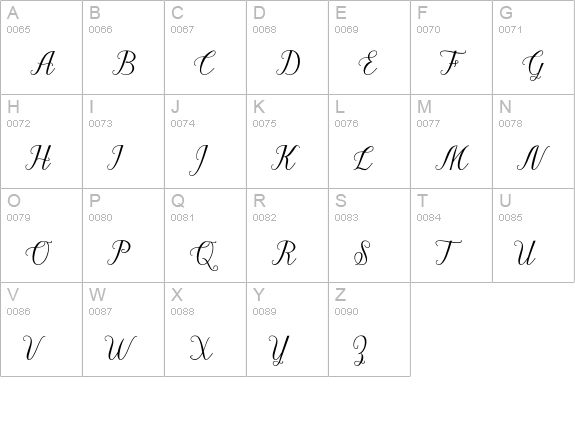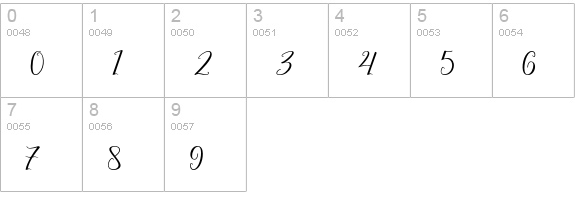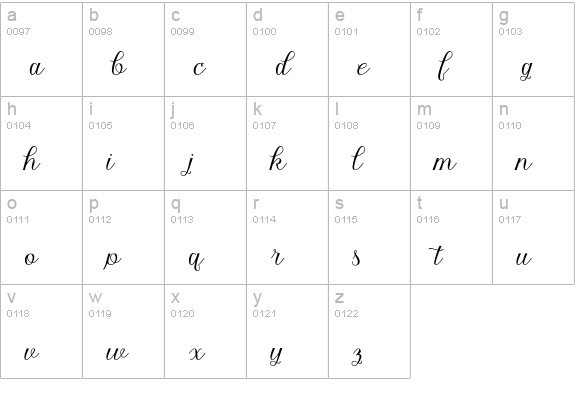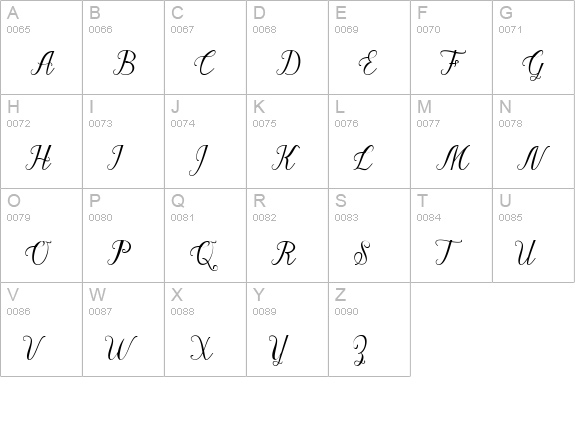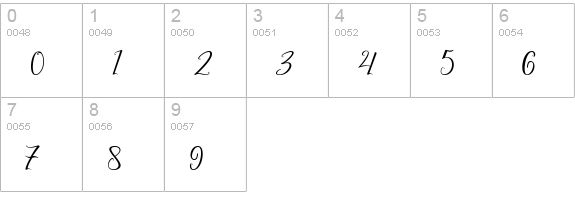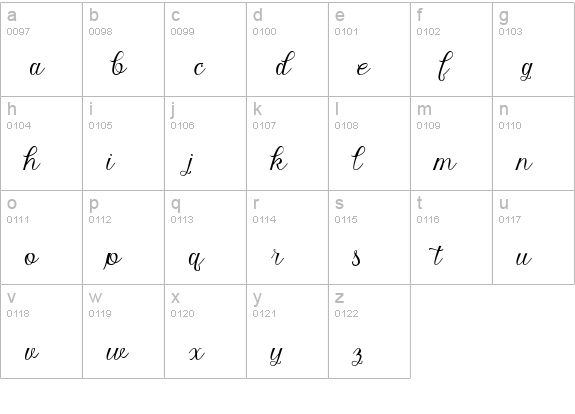
Madelina Script Font Details
Madelina Script font is a delightful and elegant typeface that exudes beauty and sophistication. With its flowing and graceful strokes, this font is perfect for adding a touch of charm to any design project. The intricate details of each letter make Madelina Script a truly unique and eye-catching choice for invitations, branding, packaging, and more. And the best part? Madelina Script font is completely free to download at FontsMarket.com! This means you can easily access this stunning font for all your creative endeavors without any cost. Don't miss out on the opportunity to enhance your designs with the beauty of Madelina Script font, available for free at FontsMarket.com.